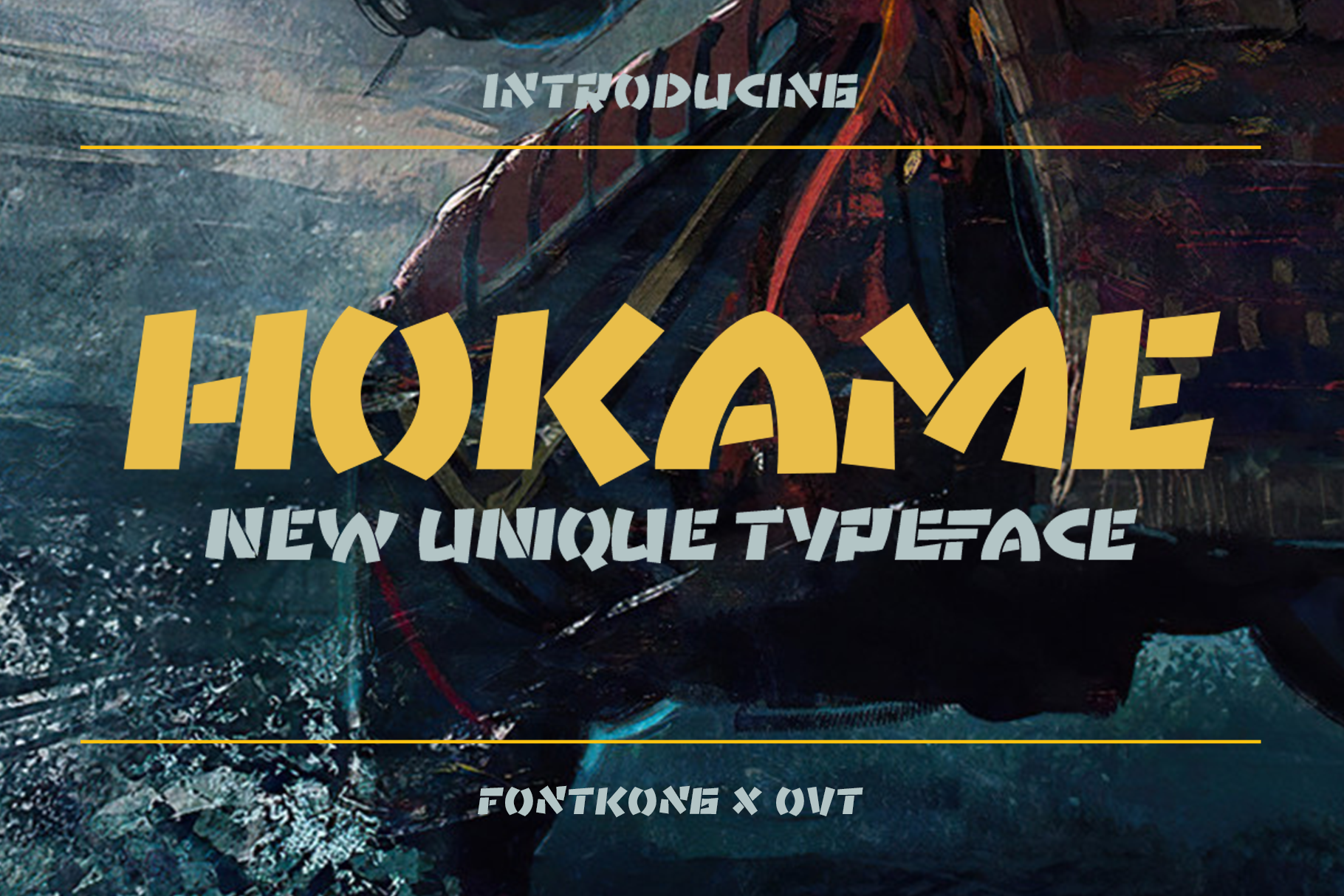
Hokame - New Unique Typeface
Introducing "Hokame," a new unique typeface that redefines creativity with its distinctive design and striking character. Perfect for graphic designers, typographers, and creatives looking to break away from the ordinary, Hokame offers an innovative and memorable style that sets your work apart.
Ideal for posters, logos, branding, editorial design, and web projects, Hokame's unique shapes and bold presence provide a fresh and captivating aesthetic. Each character is meticulously crafted to ensure a balance of creativity and readability, making your designs not only stand out but also communicate effectively.
The "Hokame" font includes a complete set of uppercase and lowercase letters, numbers, punctuation marks, and special characters. This versatility allows for a wide range of design applications, from eye-catching headlines to distinctive branding elements.
Elevate your design projects with Hokame, the new unique typeface that brings unparalleled creativity and distinctiveness to every piece.